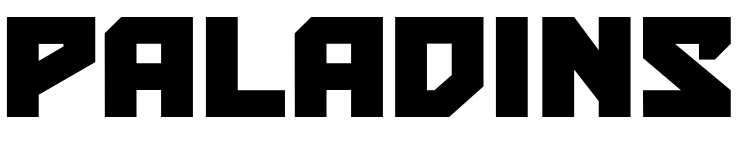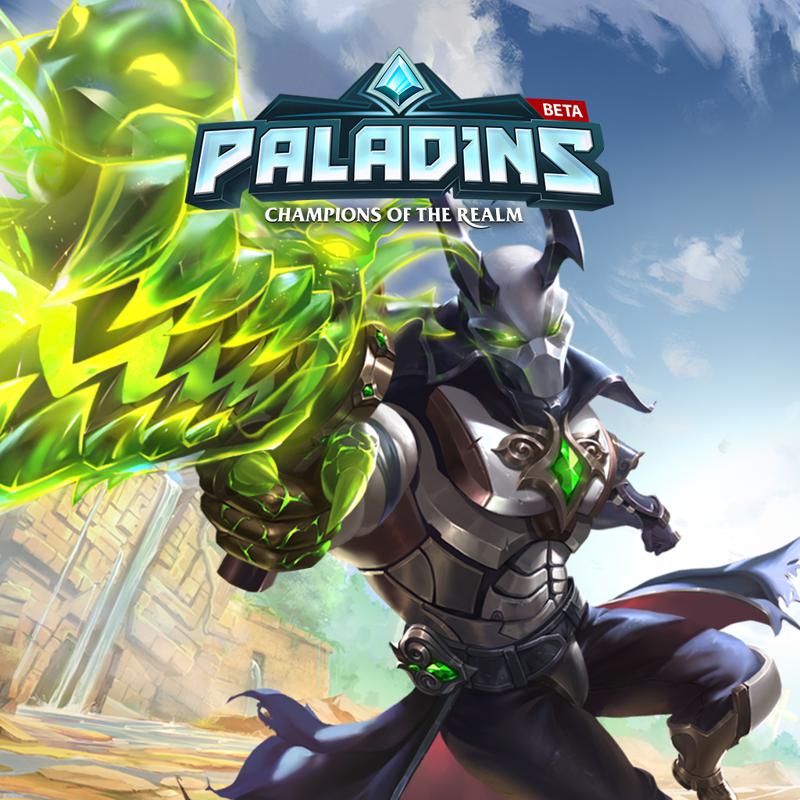
Paladins (video game) Font
Fonts in UsePaladins: Champions of the Realm is a free-to-play first-person shooter video game developed by Hi-Rez Studios. It features a diverse cast of playable champions with unique abilities and a customizable card system that allows for strategic gameplay.
The title font Paladins on the box art uses the free, blocky Bulletproof font by Blambot Fonts. It has four styles: regular, italic, deco, and deco italic, and can be downloaded for free from the Fonts Used Section. The subtitle is probably written in Friz Quadrata.